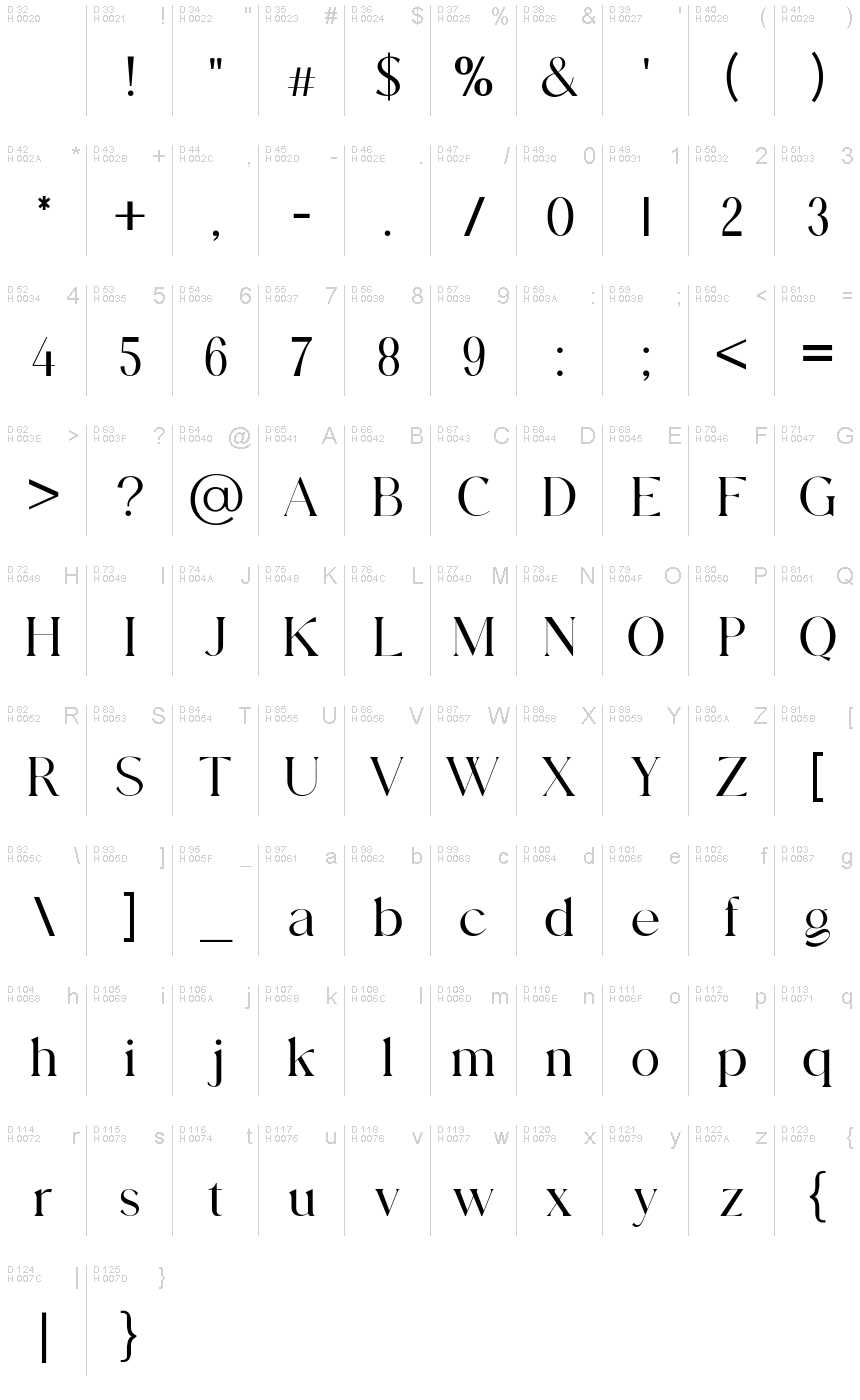
VelomiaVanora
Velomia Vanora, a distinctive serif font crafted by UI Creative, exudes a refined elegance and timeless allure. Its sharp, angular serifs and delicate stroke variations lend an air of sophistication, while the font's balanced proportions and harmonious letterforms create a visually captivating aesthetic. Velomia Vanora's versatile nature allows it to seamlessly transition between formal and casual settings, making it a versatile choice for a wide range of design applications.
This font's unique characteristics make it a compelling option for editorial projects, such as high-end magazines and book covers, where its refined elegance can elevate the overall visual presentation. Additionally, Velomia Vanora's versatility extends to branding and logo design, where its distinctive features can help to establish a strong, memorable identity.